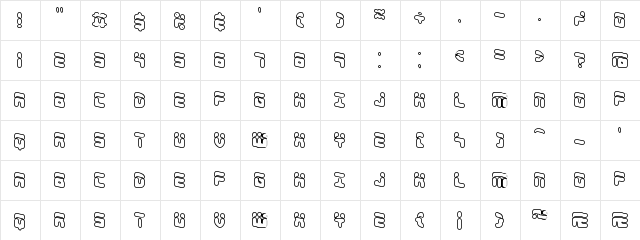
Foreshadow OL BRK Normal
| Foundry | ƎIGMA FONTS |
| Designer | ƎIGMA FONTS - Brian Kent |
Design Context for Foreshadow OL BRK Typeface
Foreshadow OL BRK brings ornamental detail and strong personality to headlines and identities, where visual impact matters more than quiet functionality.